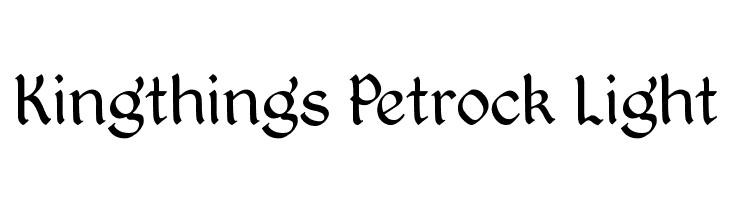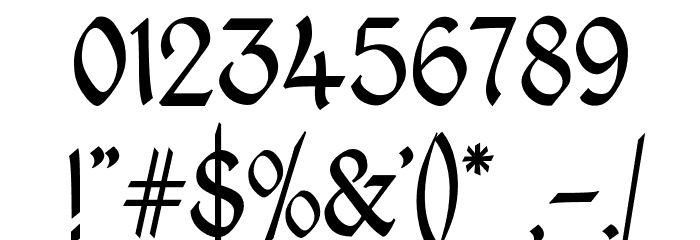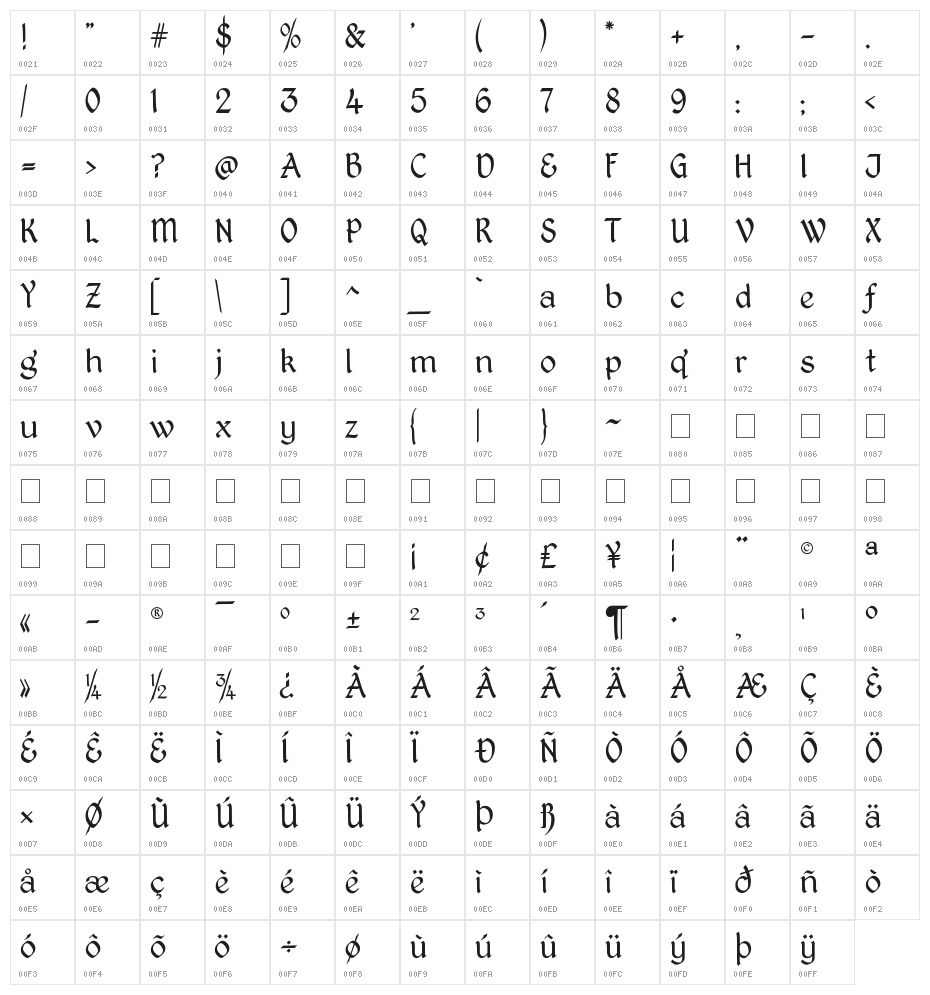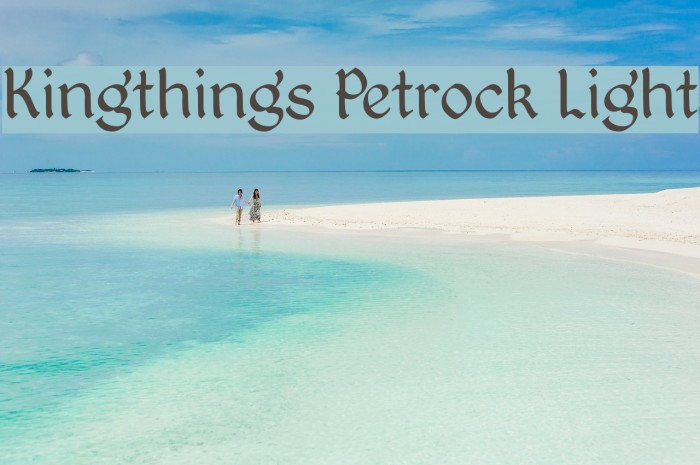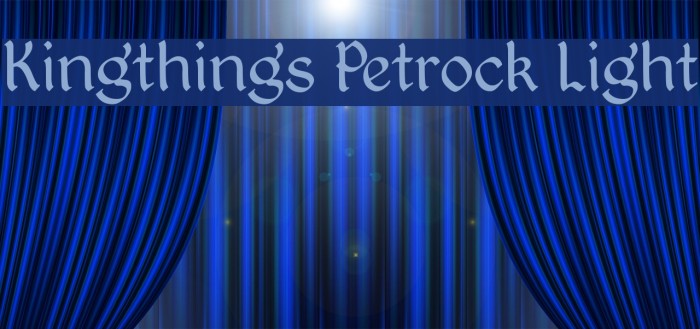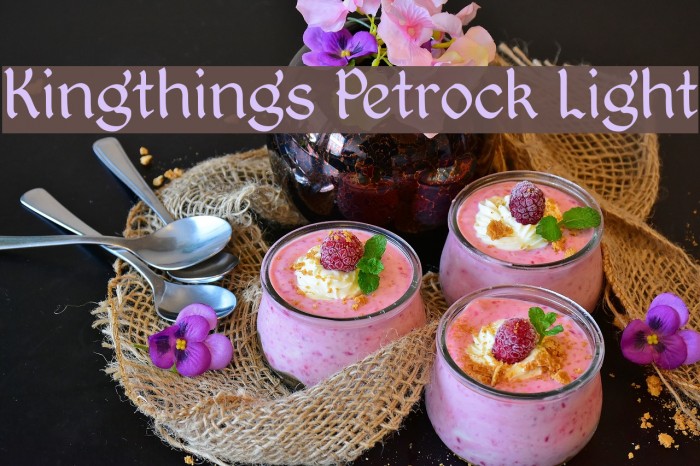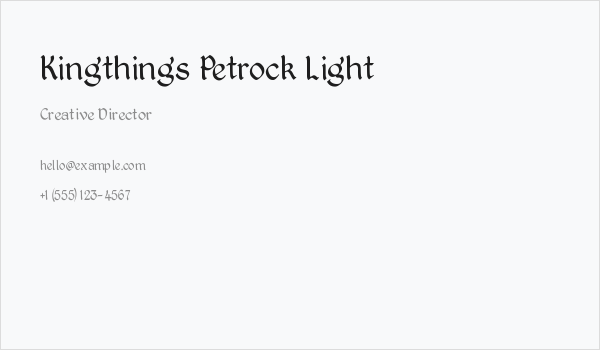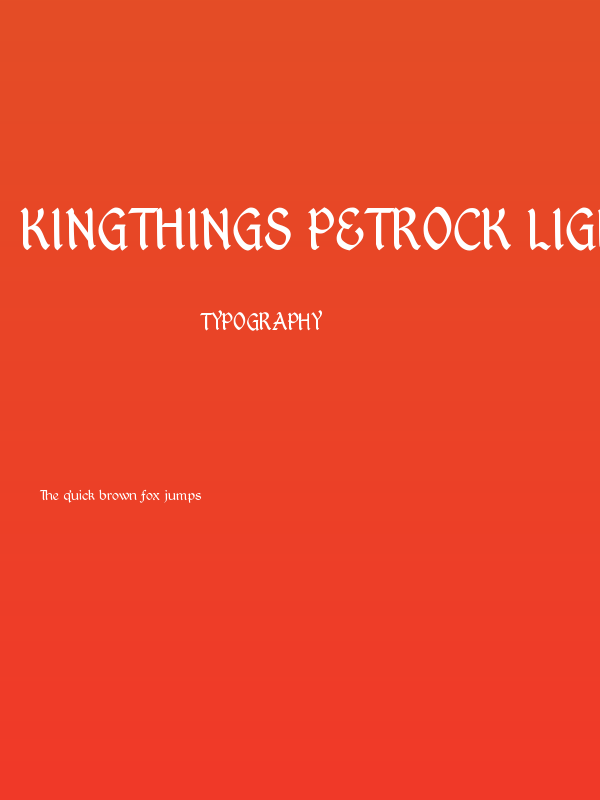
Kingthings Petrock Light Font
Kingthings Petrock Light Description
This font features a unique blend of medieval and modern elements, characterized by its distinct, angular serifs and slightly curved strokes. The uppercase letters exhibit a strong presence with their bold, sharp edges, while the lowercase letters maintain a more fluid and approachable style. The numerals are consistent with the overall design, offering a harmonious balance between readability and artistic flair. Special characters are thoughtfully crafted, ensuring they complement the alphabetic characters seamlessly. This font's intricate details and historical inspiration make it stand out as a decorative choice.
| Proposed Projects | Ideal for projects requiring a historical or fantasy theme, such as book covers, game titles, or themed event invitations. |